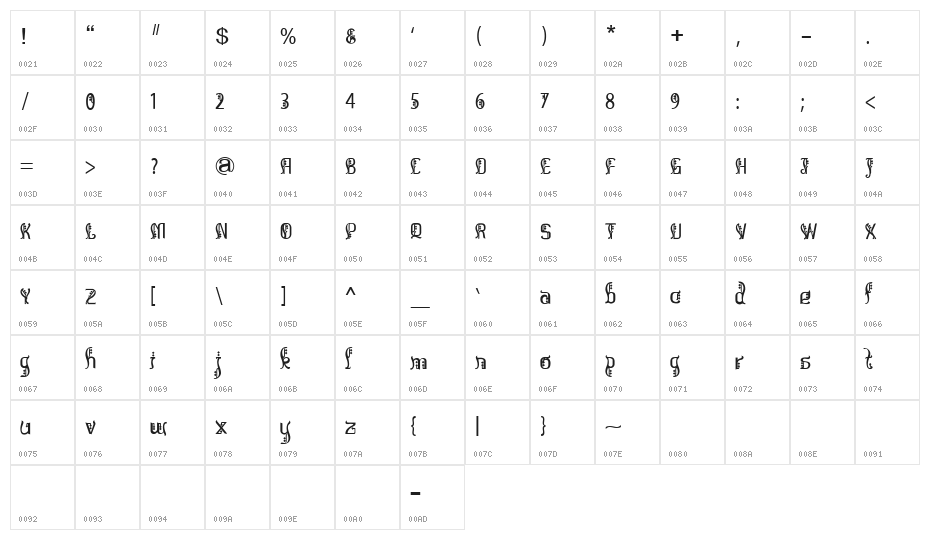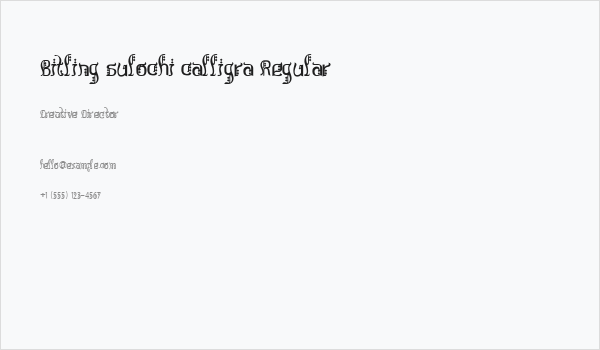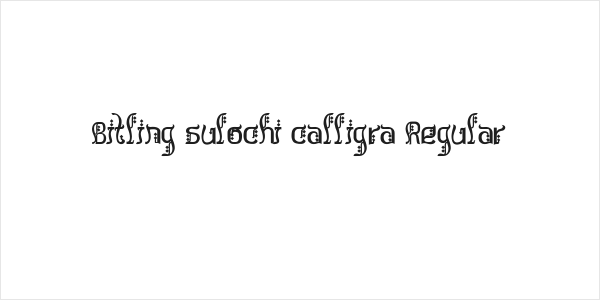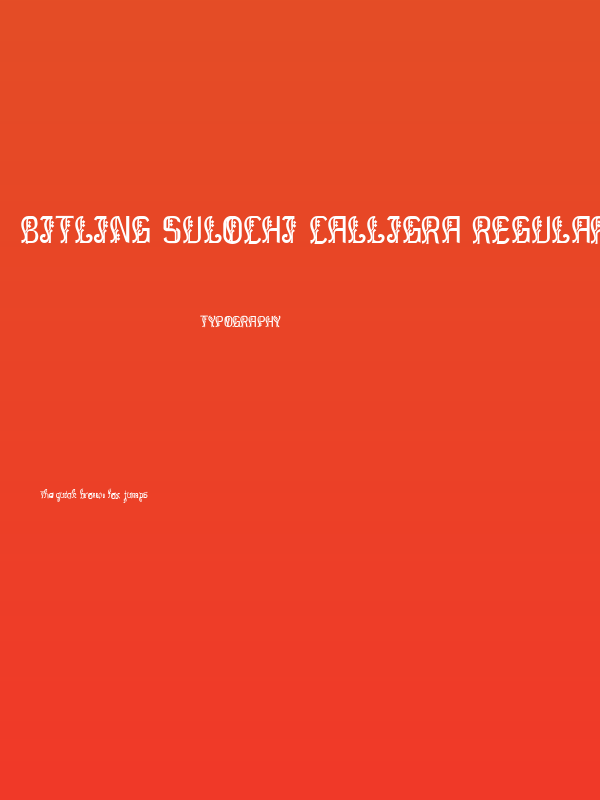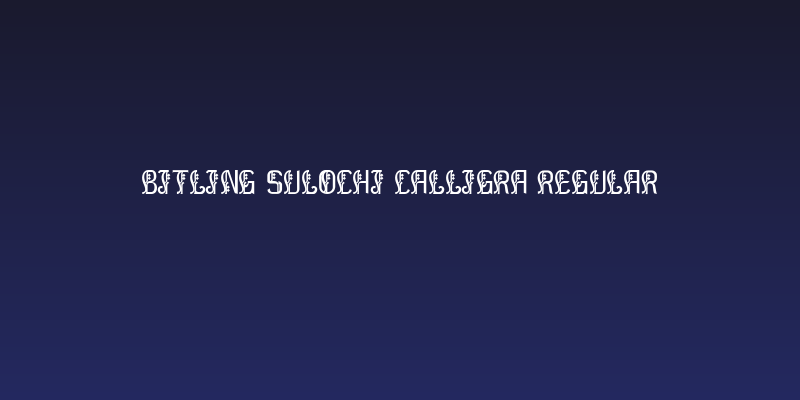
Bitling sulochi calligra Regular Font
Bitling sulochi calligra Regular Description
This font features a unique and intricate design with a calligraphic flair. Each character is adorned with decorative elements that give it a distinct, ornamental appearance. The uppercase letters are bold and striking, while the lowercase letters maintain a consistent style with slightly less embellishment. The numerals and special characters follow the same decorative theme, ensuring a cohesive look across all glyphs. The font's artistic nature makes it suitable for projects that require a touch of elegance and creativity.
| Proposed Projects | Ideal for wedding invitations, artistic posters, branding for luxury products, and decorative headings. |